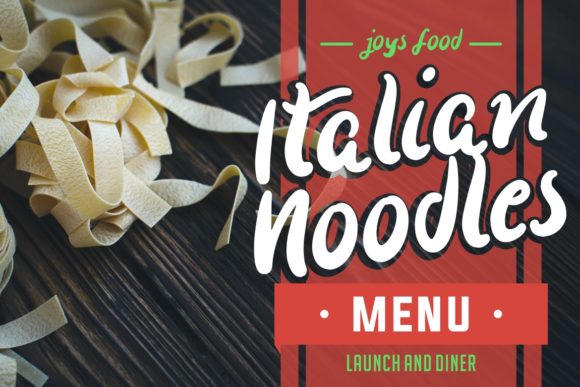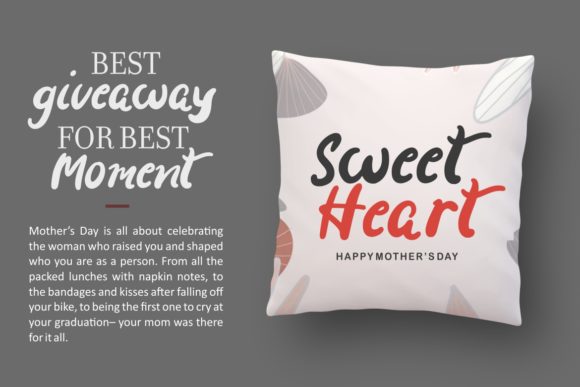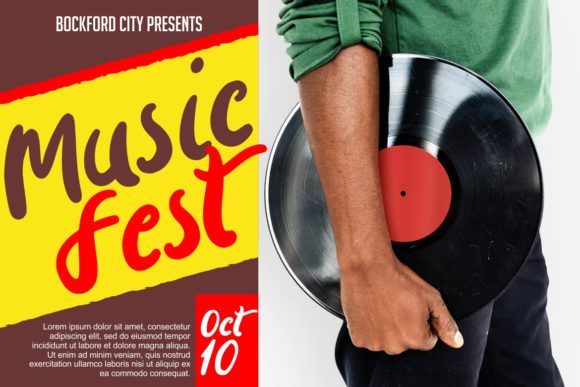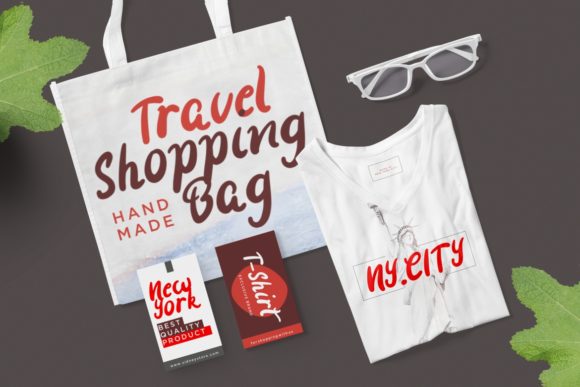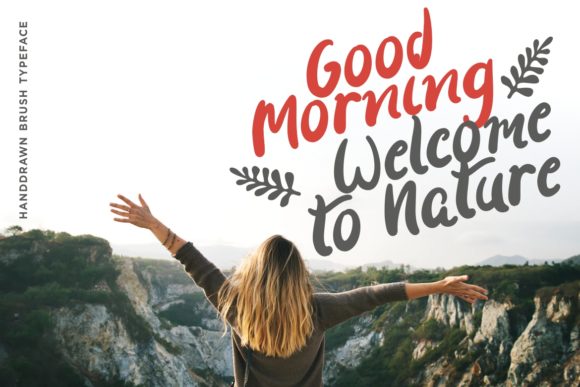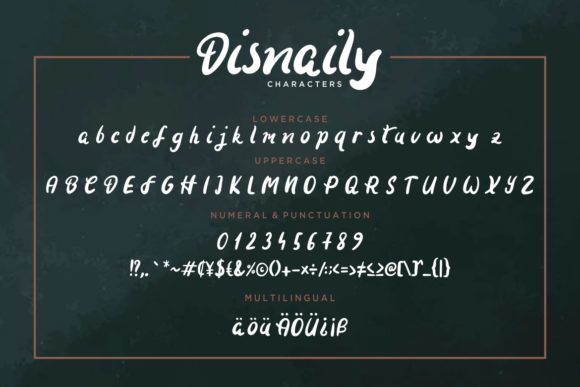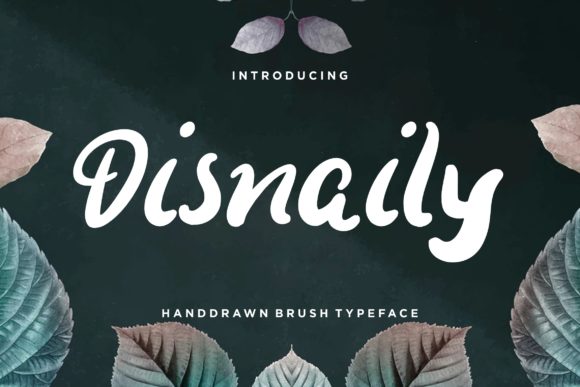
Introducing Disnaily Font: Elevate Your Crafting Ideas into Art
Are you a designer, crafter, or DIY enthusiast looking for a font that can add a touch of charm and personality to your projects? Look no further than Disnaily Font! This simple yet sweet display font is designed to turn any crafting idea into a true piece of art. In this article, we’ll dive into the features and benefits of Disnaily Font, and explore how it can elevate your creative projects.
The Charm of Disnaily Font
Disnaily Font is a display font that exudes a cool charm, making it perfect for a wide range of creative projects. Its simplicity is its strength, allowing it to work seamlessly with various design styles and themes. Whether you’re creating handmade cards, crafting signs, or designing social media graphics, Disnaily Font is sure to add a touch of personality and whimsy.
Key Features of Disnaily Font
- Simple yet sweet design: Disnaily Font boasts a clean and elegant design that’s easy to read and works well in large and small sizes.
- Cool charm: The font’s unique character and charm make it perfect for adding a personal touch to your projects.
- Display font: Disnaily Font is designed specifically for display purposes, making it ideal for headlines, titles, and other prominent text elements.
- Versatile: This font works well with various design styles, from modern and minimalist to vintage and distressed.
Disnaily Font offers a range of benefits for designers and crafters, including:
- Time-saving: With Disnaily Font, you can quickly add a professional touch to your projects without spending hours on design.
- Unique look: The font’s distinctive charm and character help your projects stand out from the crowd.
- Customization: Disnaily Font can be easily customized to fit your project’s specific needs, from color and size to texture and style.
Creative Project Ideas with Disnaily Font
Disnaily Font is perfect for a wide range of creative projects, including:
- Handmade cards and invitations: Add a personal touch to your correspondence with Disnaily Font.
- Crafting signs and posters: Create eye-catching signs and posters for your business, event, or social media channels.
- Social media graphics: Elevate your social media presence with custom graphics featuring Disnaily Font.
- DIY projects: Add a touch of personality to your DIY projects, from woodworking to sewing.
Disnaily Font is a versatile and charming display font that’s perfect for designers, crafters, and DIY enthusiasts. Its simplicity, cool charm, and ease of use make it an excellent choice for a wide range of creative projects. Whether you’re looking to add a personal touch to your handmade cards or create eye-catching social media graphics, Disnaily Font is sure to elevate your crafting ideas into true pieces of art.